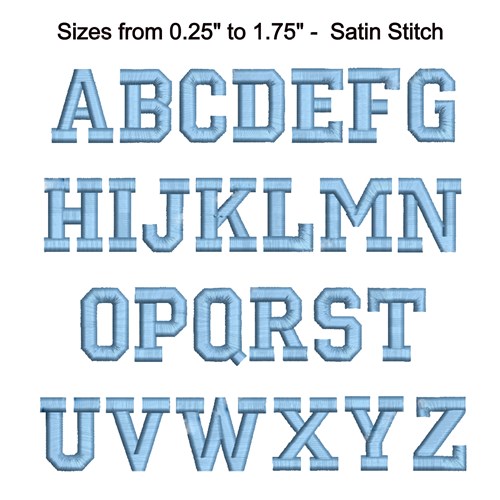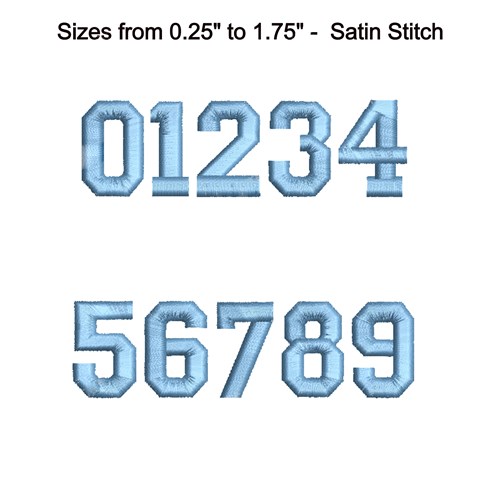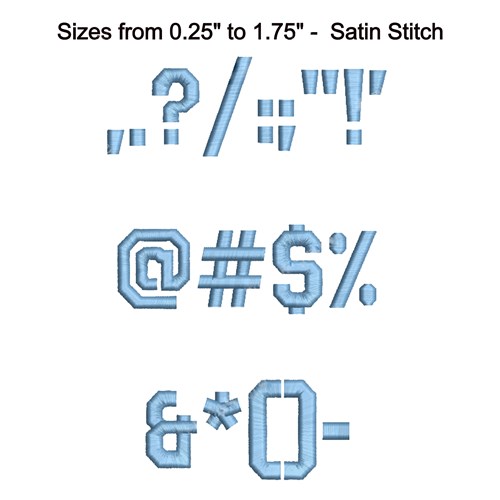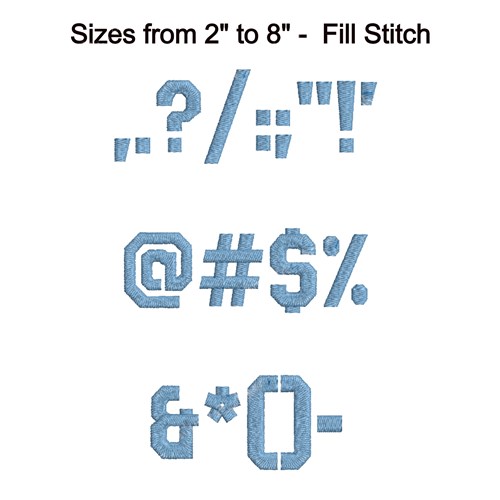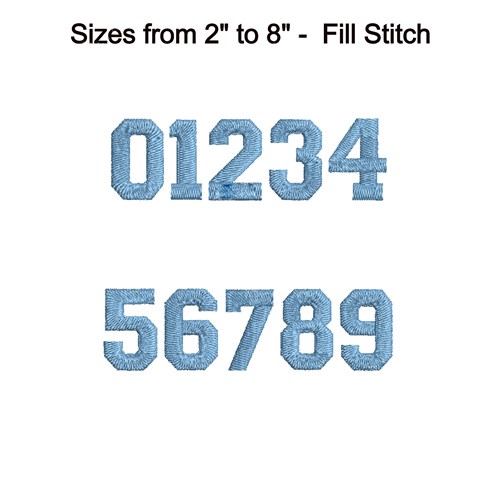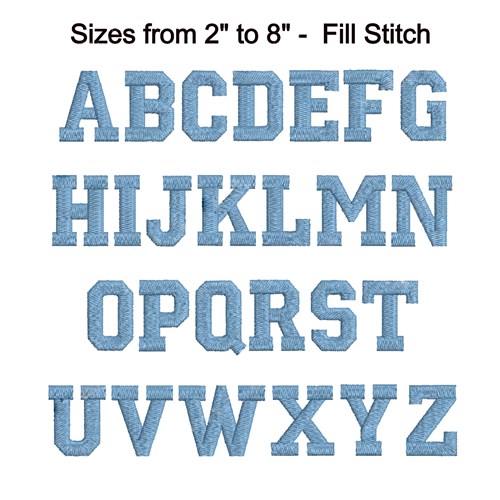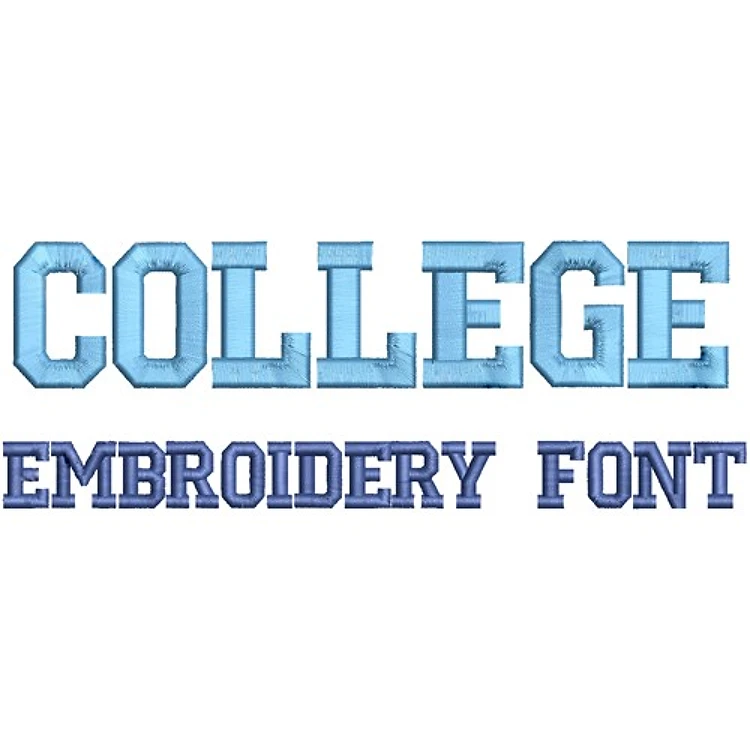
Artsy Knots is happy to present College Font machine embroidery font which has Bold collegiate machine embroidery font ideal for apparel, like jackets and caps. Showcasing the word 'COLLEGE' with a stitched appearance, available in PES, DST, and 6 other formats. included. If you would like to view more embroidery fonts and alphabets please search our embroidery fonts page.